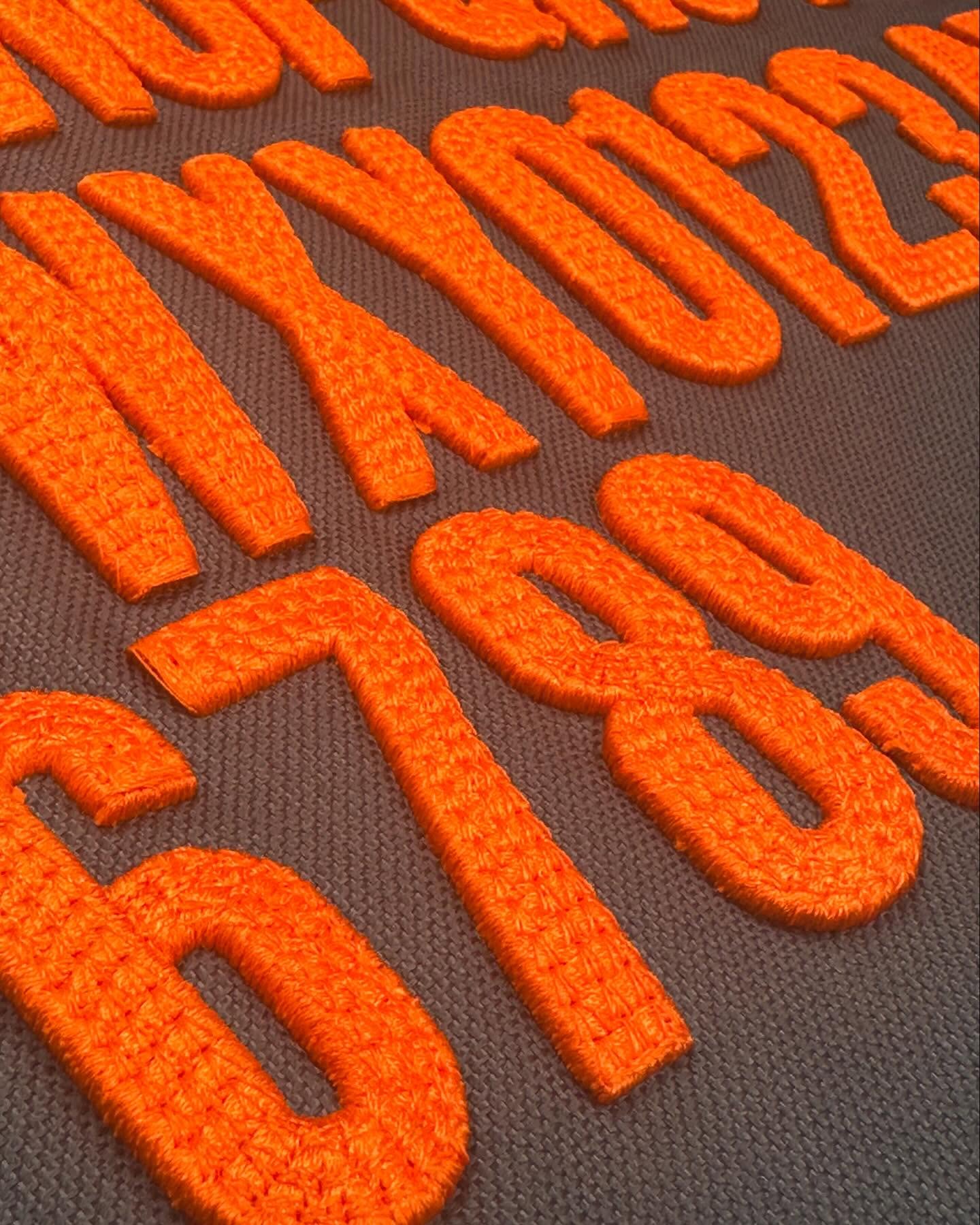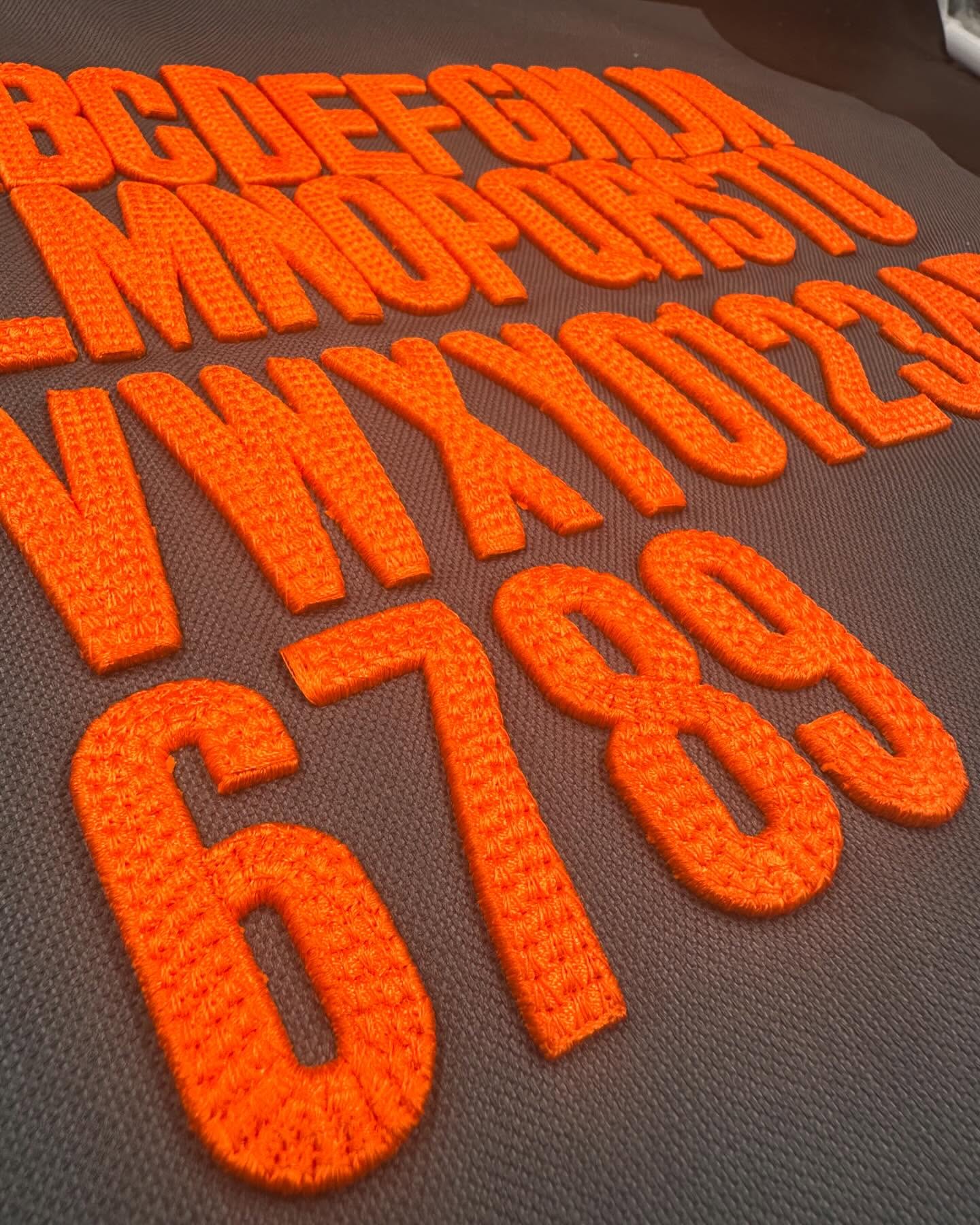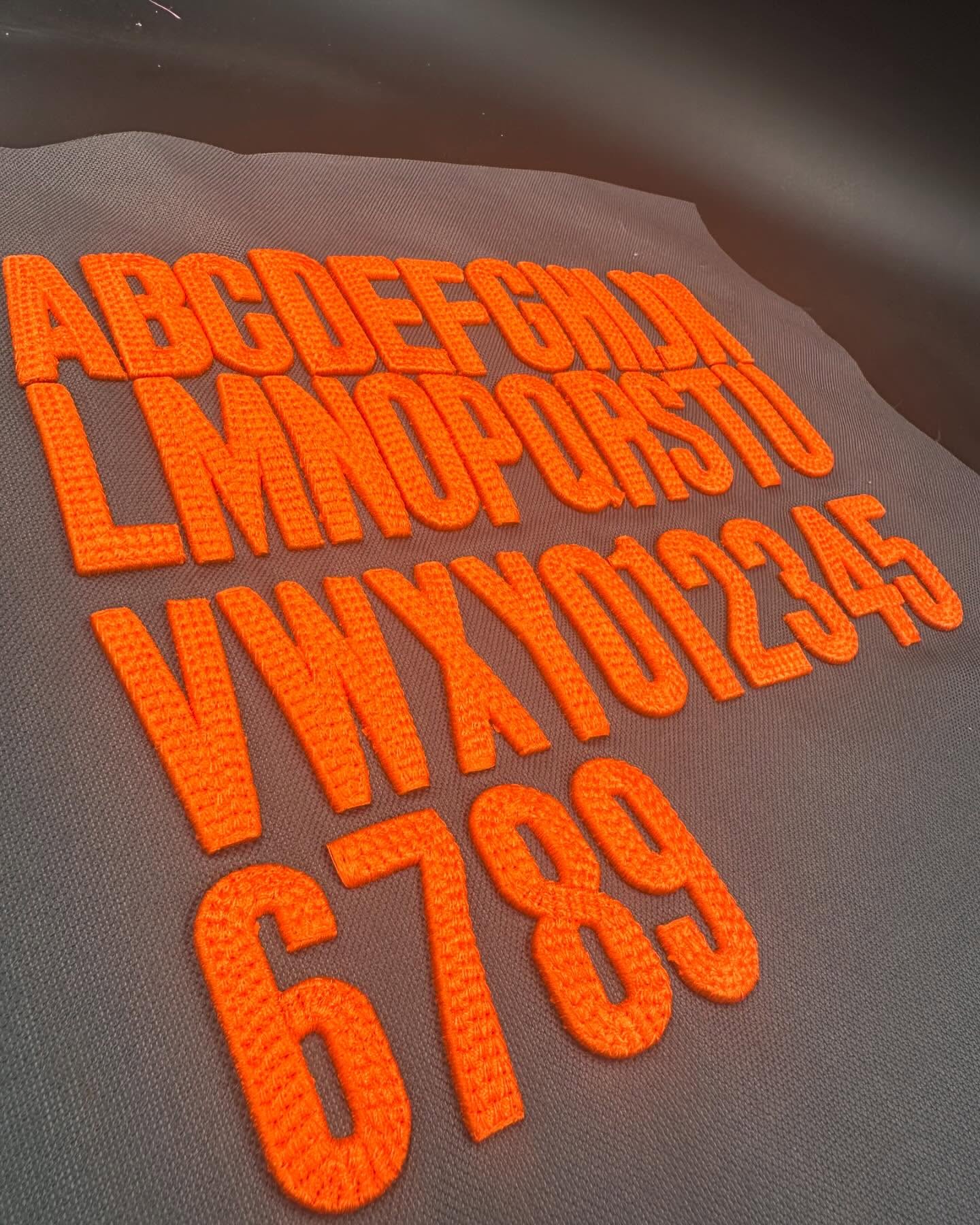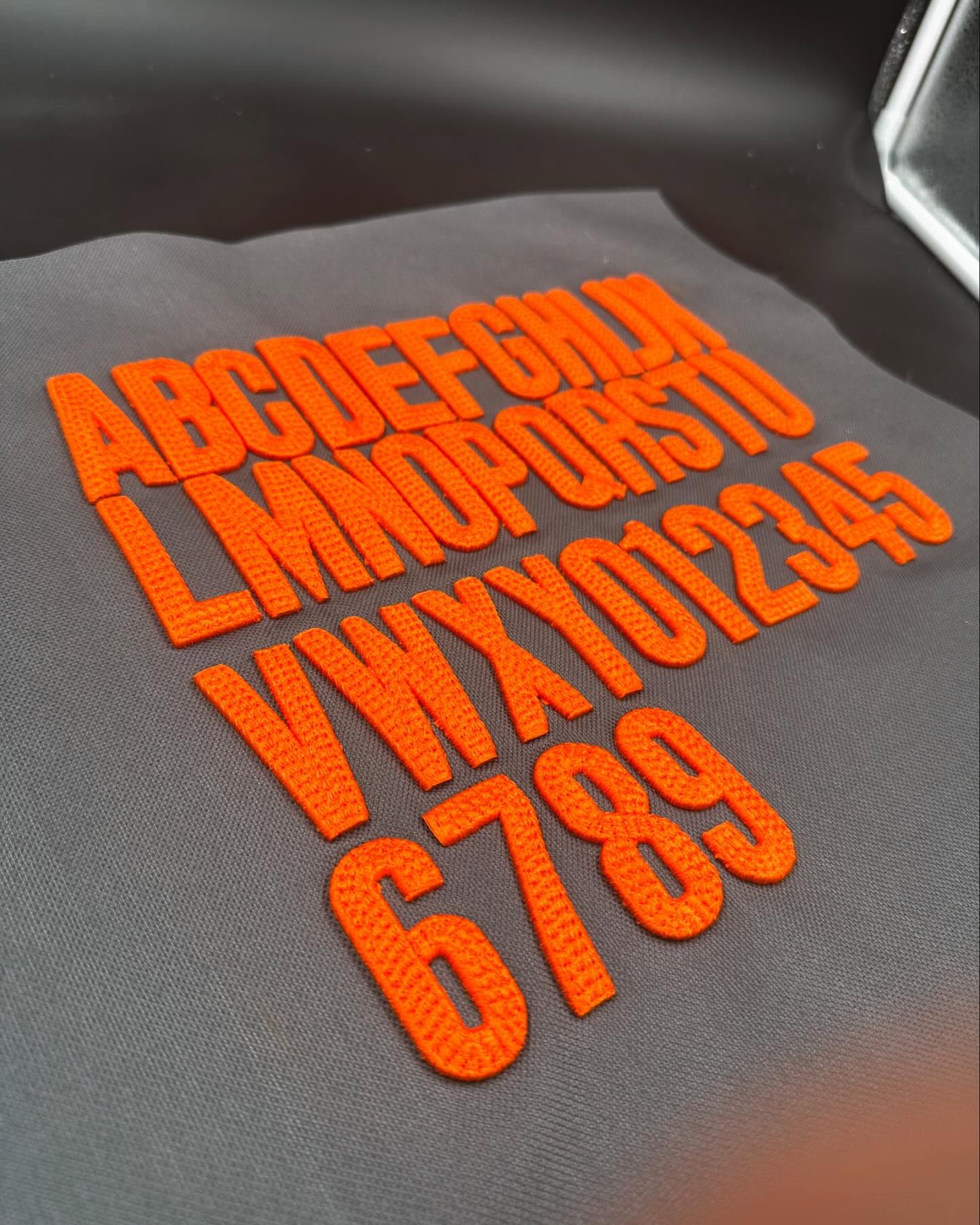
Varsity 3D Puff Chain Stitch Font
Add bold energy to your cap collection with our Varsity 3D Puff Numbers Embroidery! This design features thick, raised varsity-style numbers in eye-catching orange, creating a dynamic and tactile look that pops on any headwear.